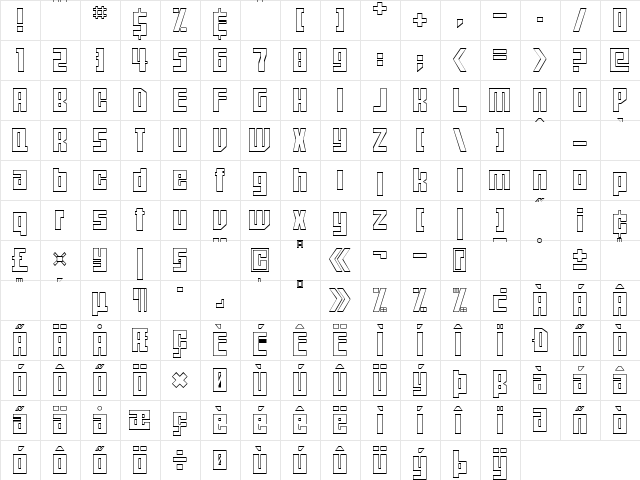
Have A Nice Day Regular
Design Context for Have A Nice Day Typeface
Have A Nice Day is a composed and adaptable typeface that performs quietly and consistently across a wide range of design contexts.